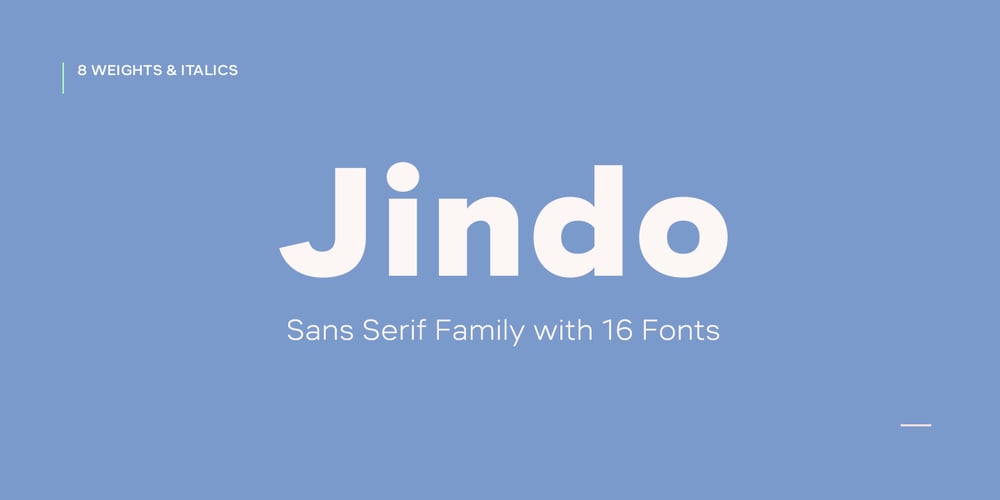
Jindo Font Family was designed by Paul Chen and published by Nine Font. Jindo contains 16 styles and family package options. Jindo font family consists of 16 fonts in total. This family consists of 8 weights and matching italics, and supports a number of OpenType features. Its characteristic wide shape makes the text more legible and readable at small sizes. Recommended for magazines, posters, websites, editorial design, and various range of design works.